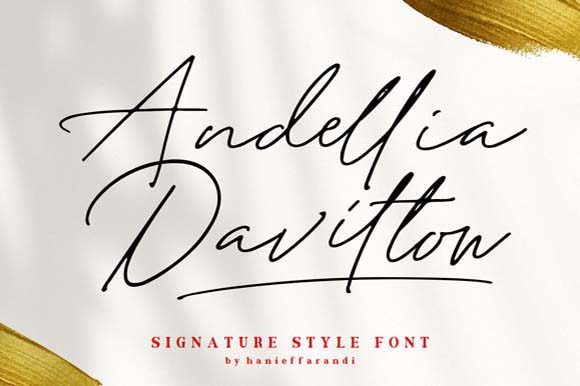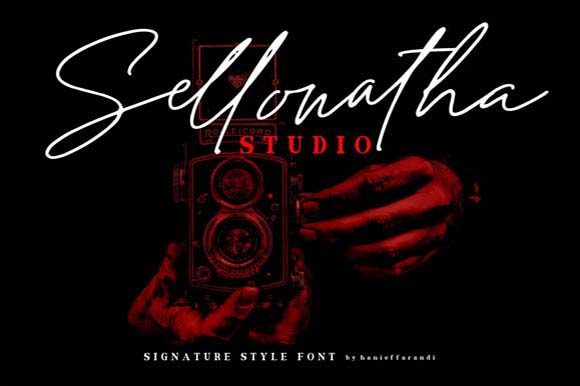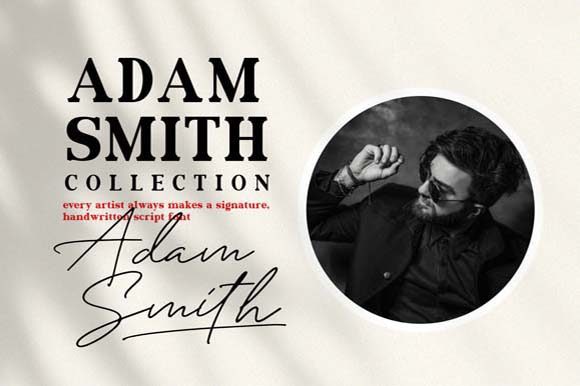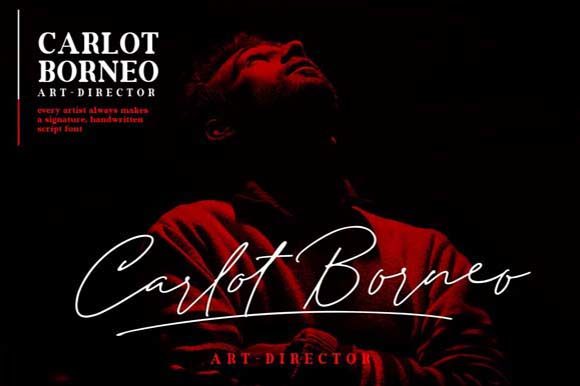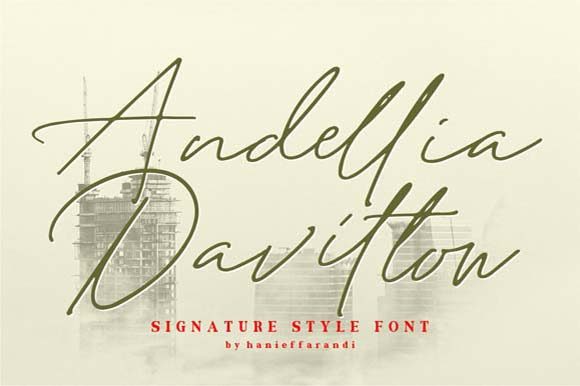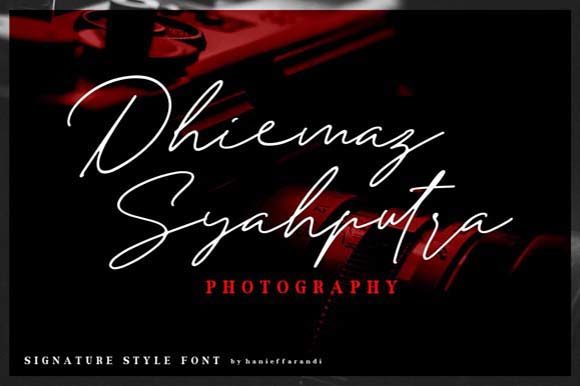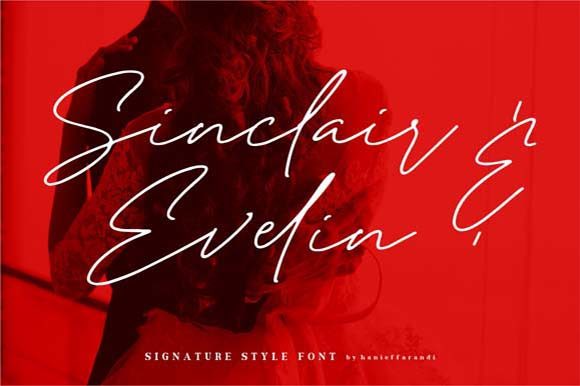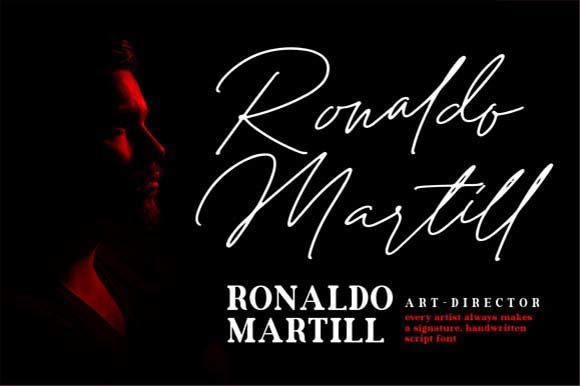
Andellia Davilton Font
About Andellia Davilton Font
Andellia Davilton is a flowing handwritten script font with a lovely style. Get inspired by its unique appearance!.